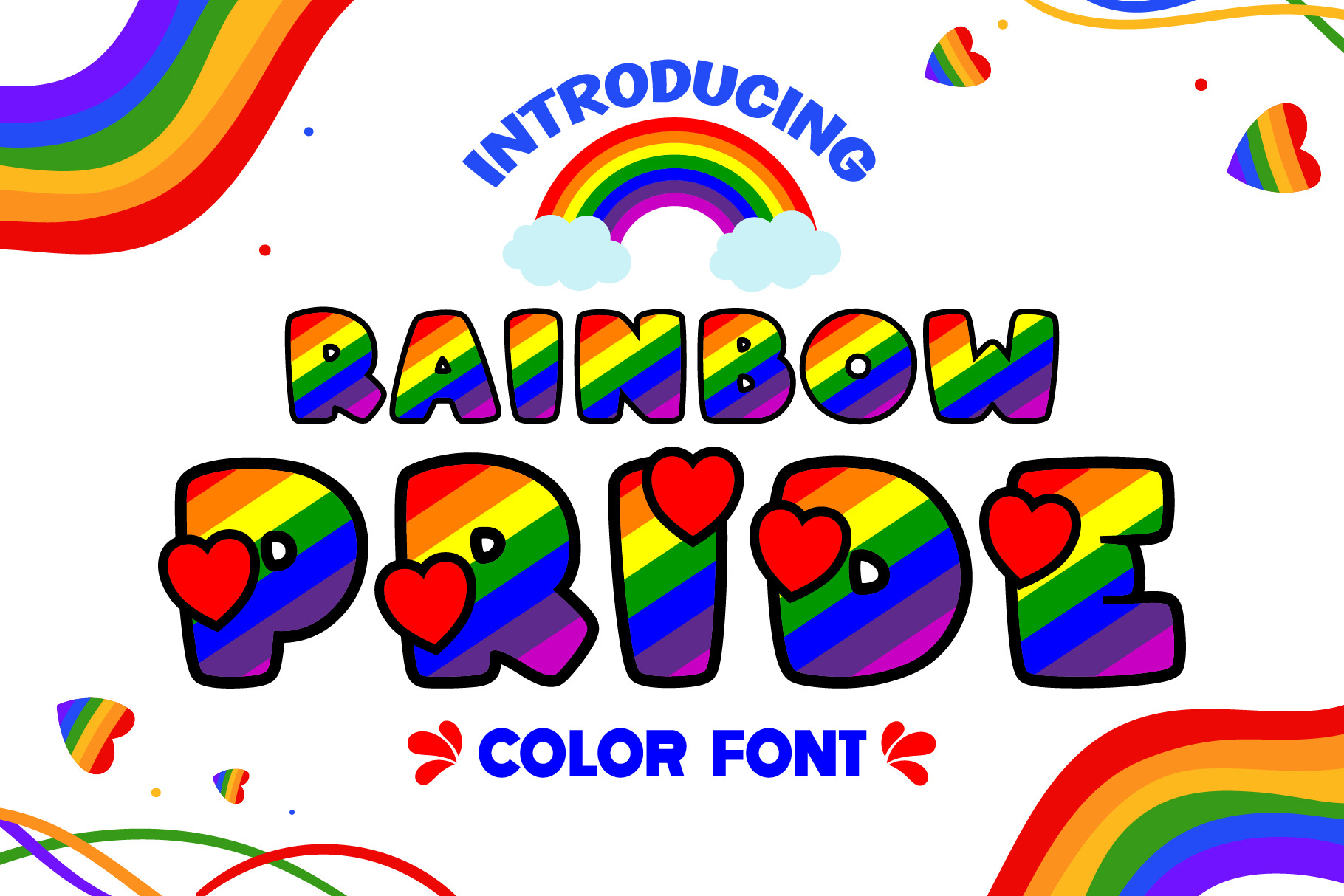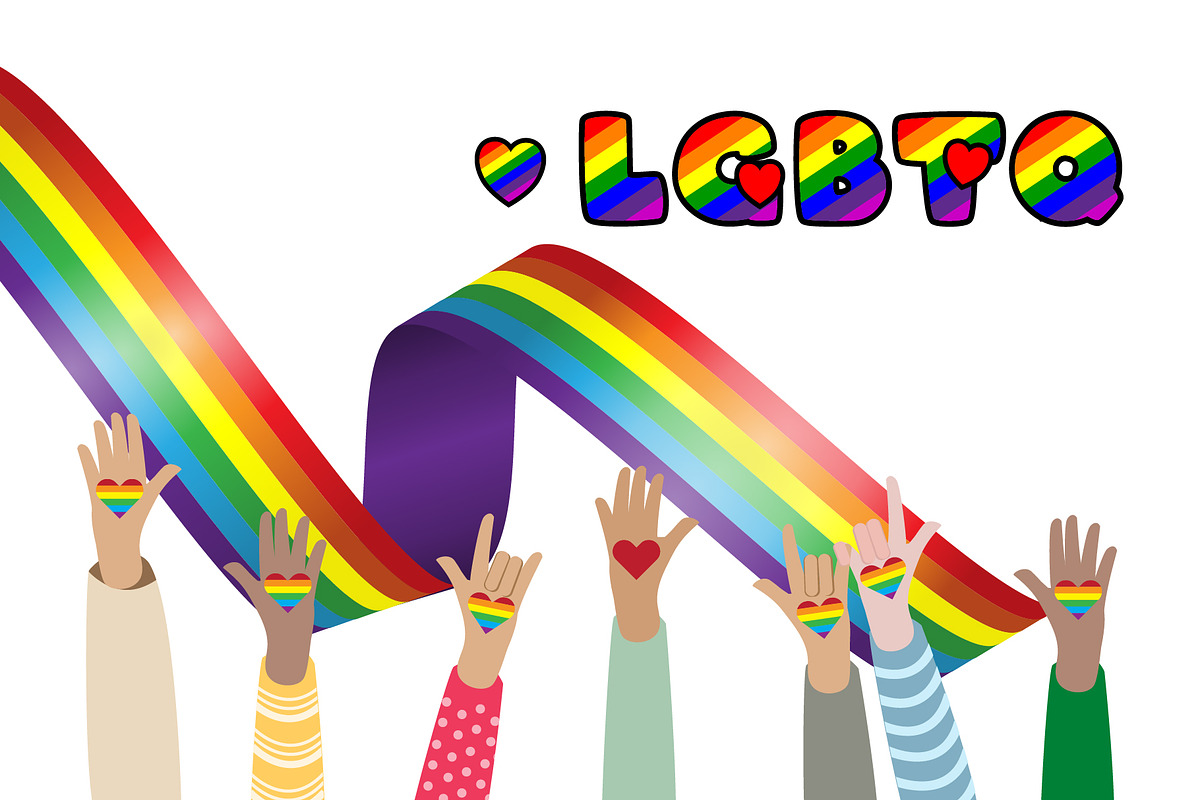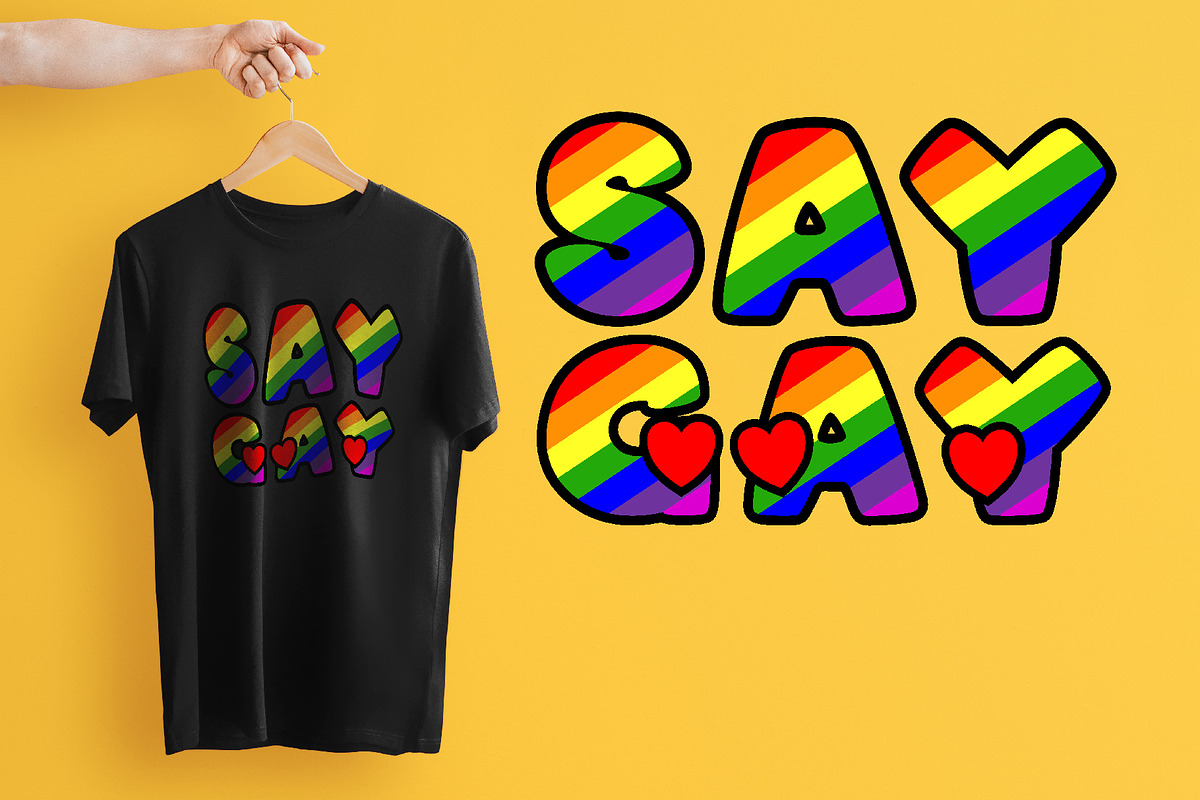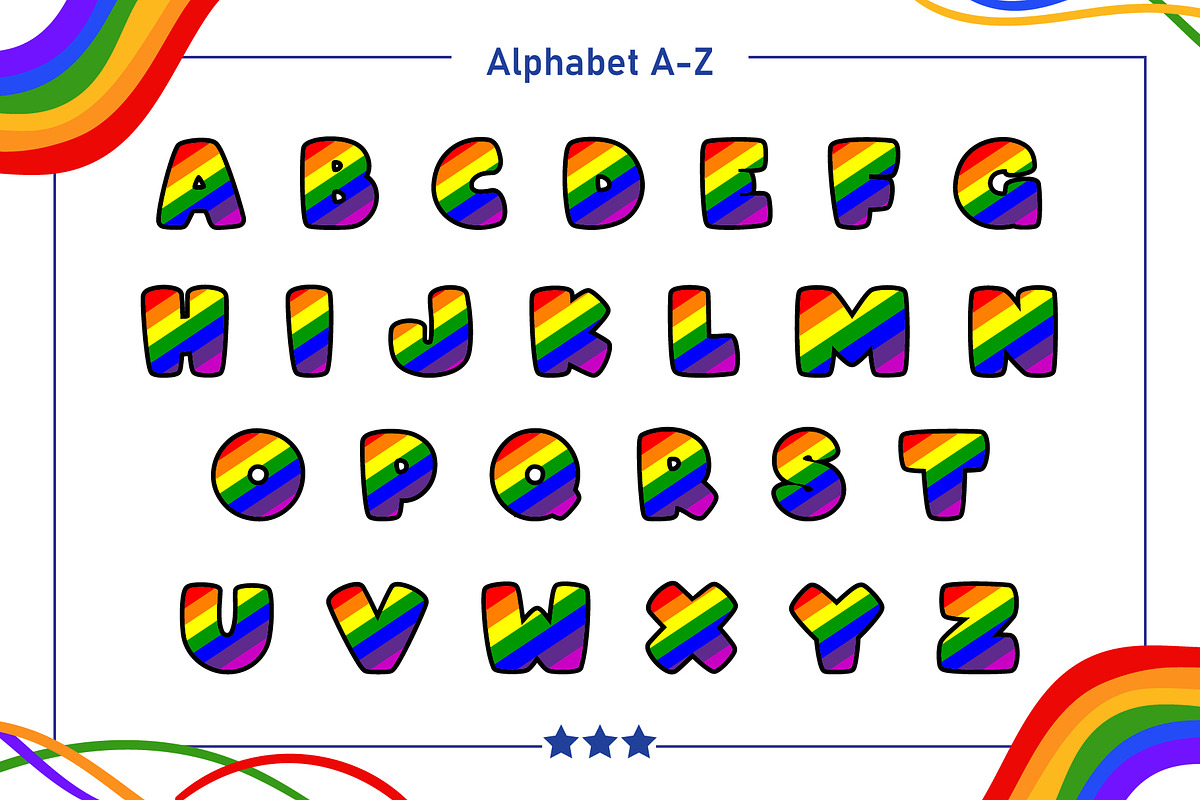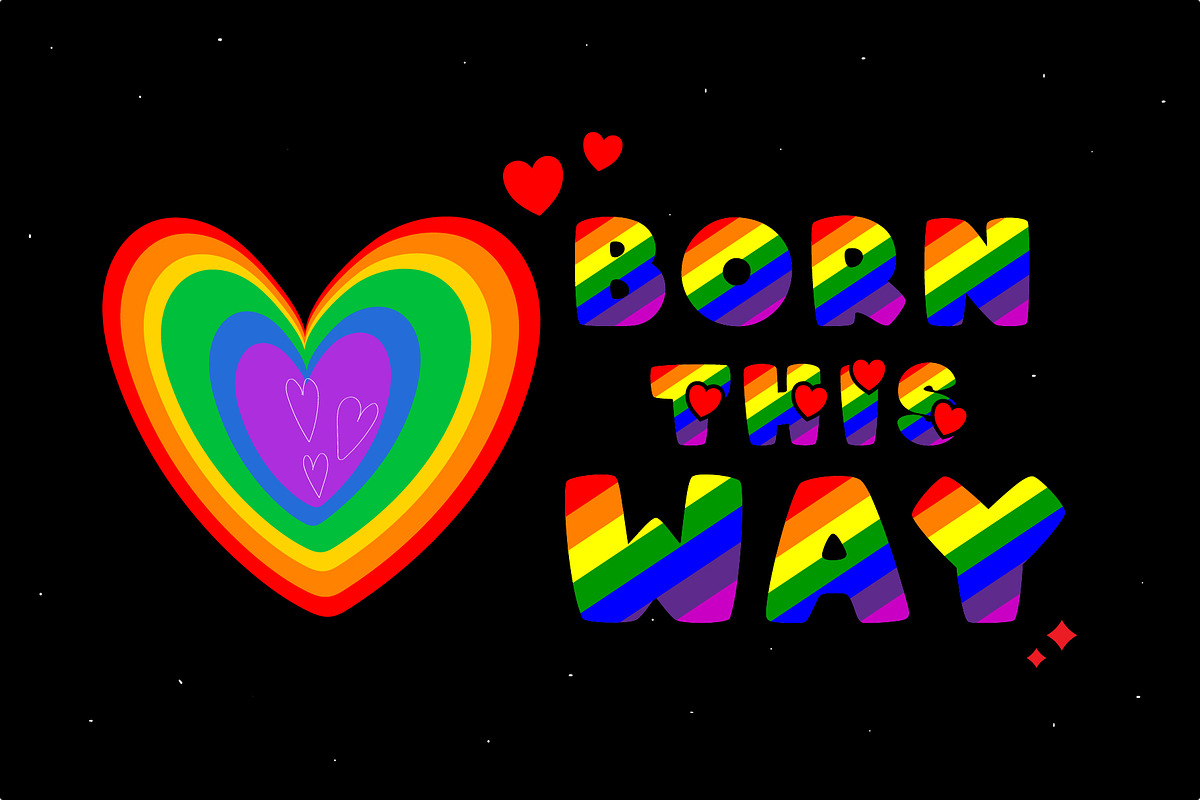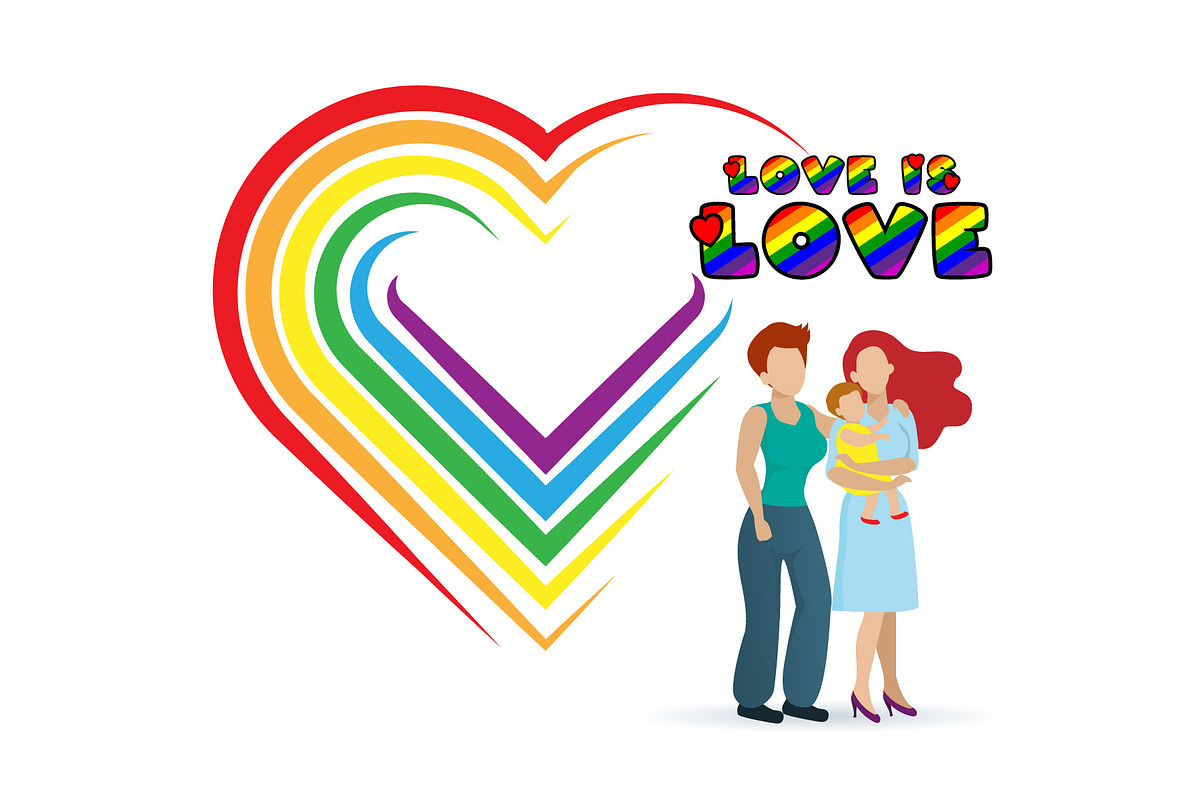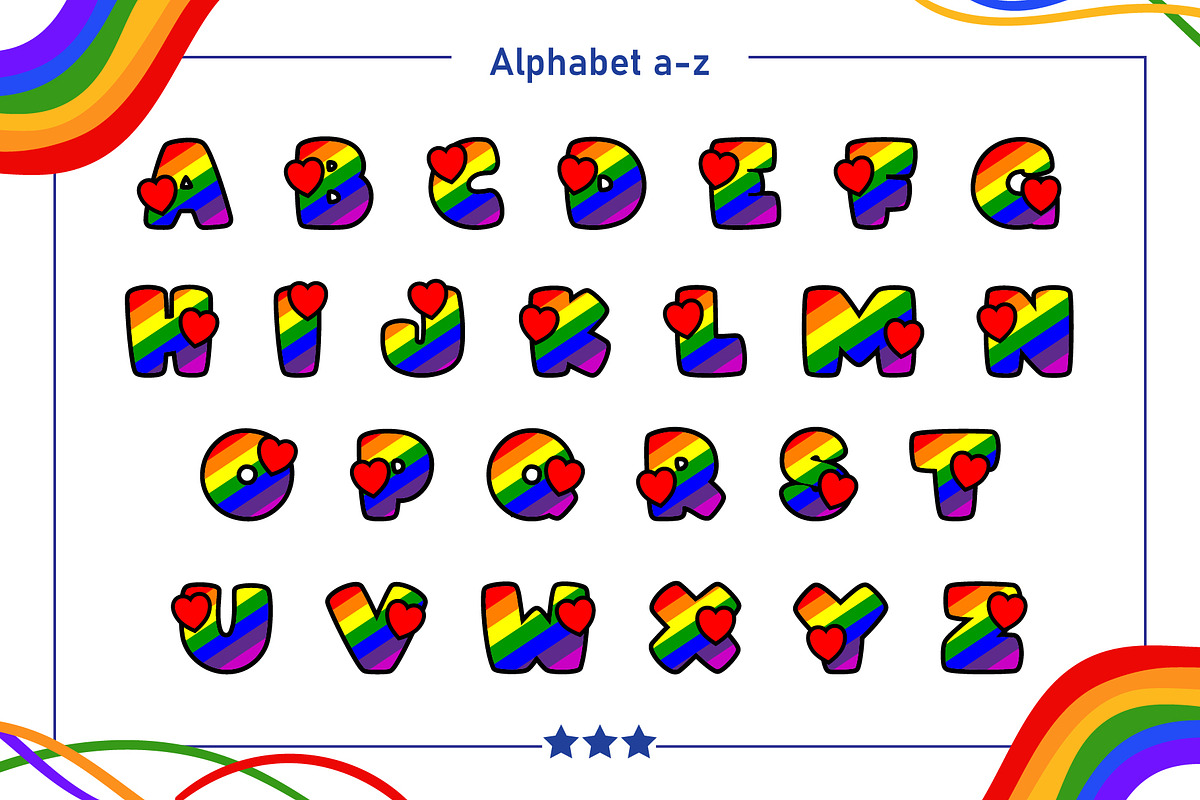
Rainbow Pride Color fonts
Rainbow Pride is a beautiful and cute color font. make you feel bright and fun. you can access all of the glyphs and swashes with ease! Together with Pride will turn any creative idea into a standout! Design your product using this unique font and share your project for others to be inspired by your work!